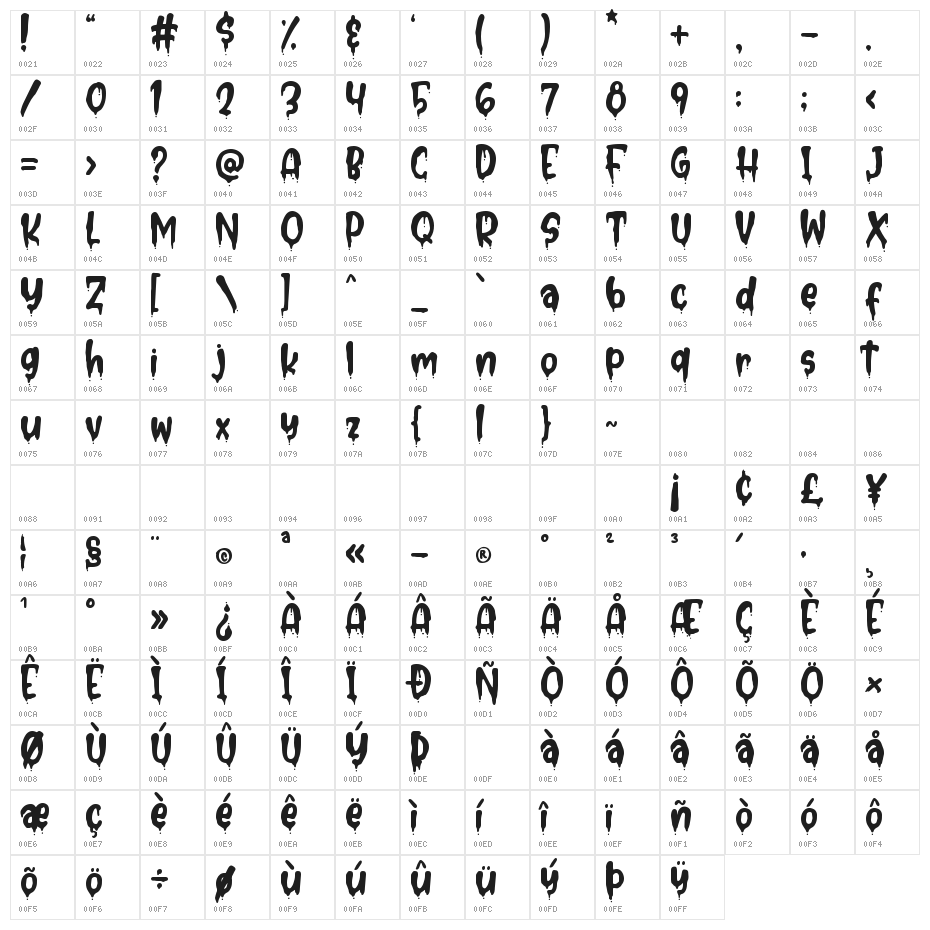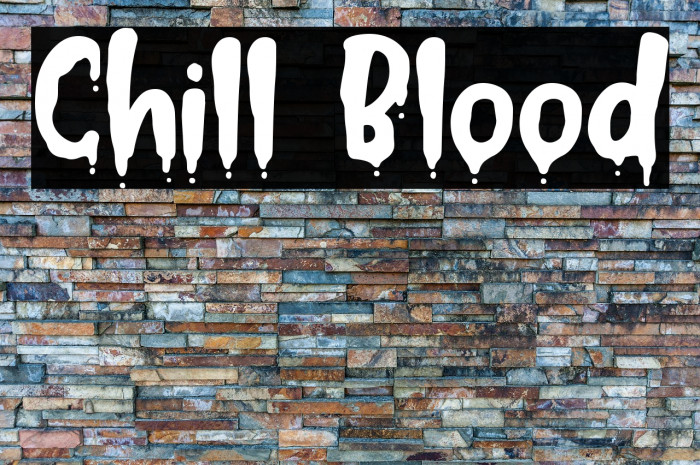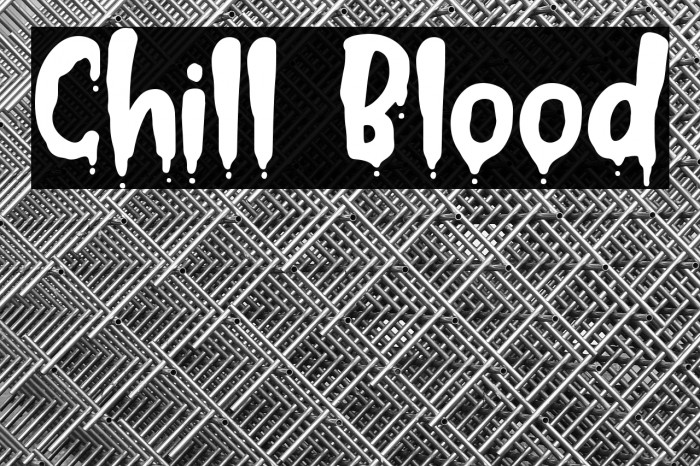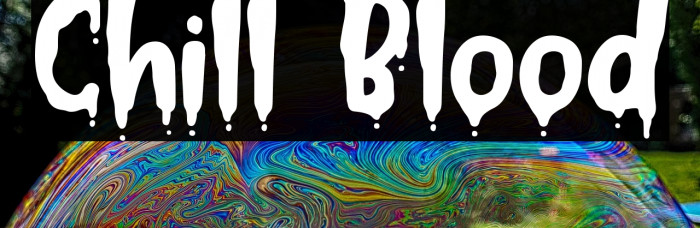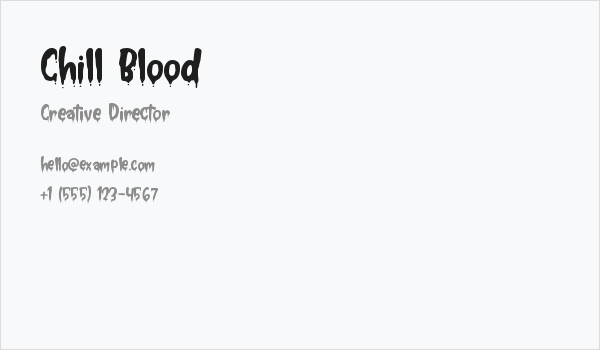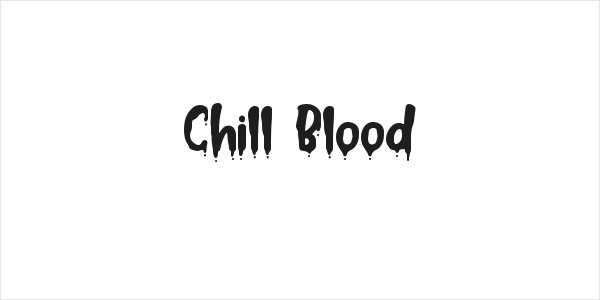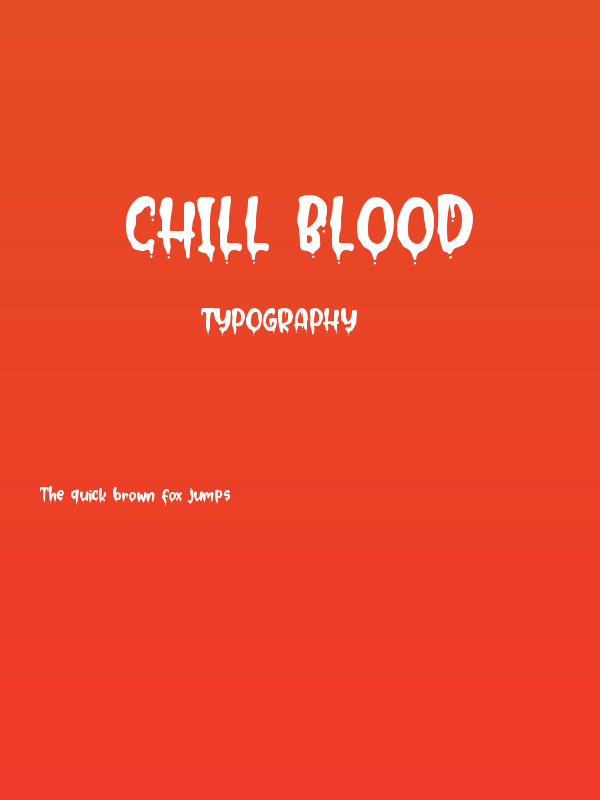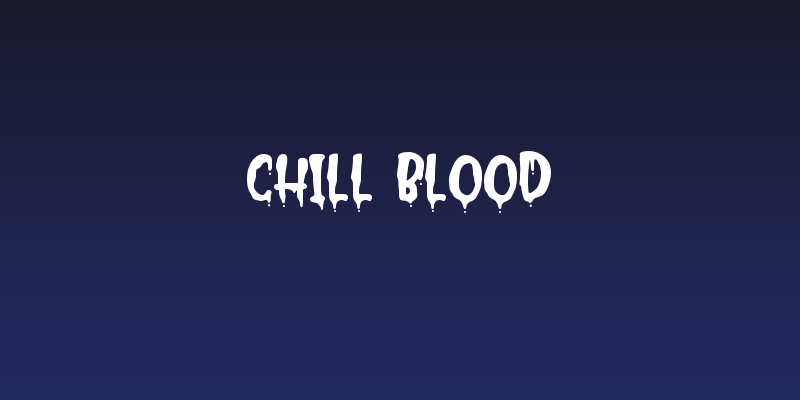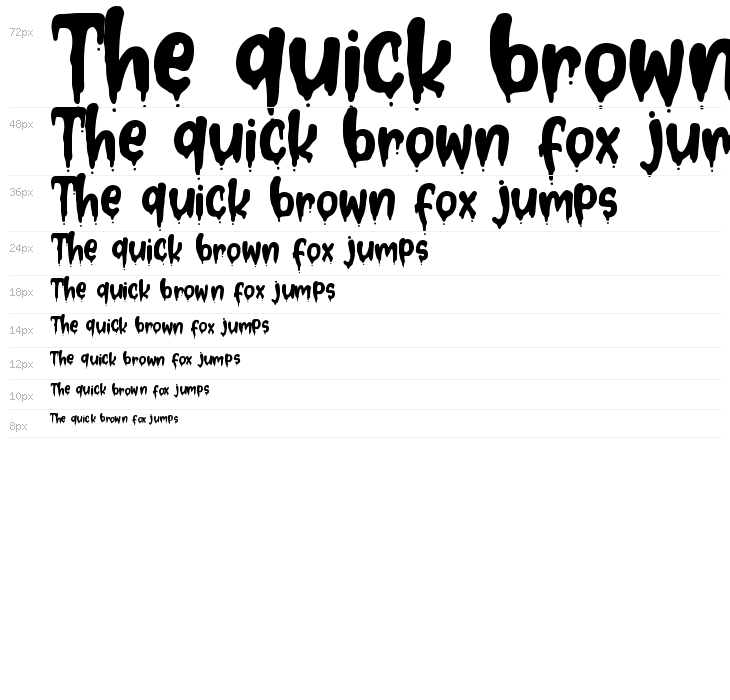
Chill Blood Font
Chill Blood Description
This font features a unique and eye-catching design with a dripping effect that gives it a spooky, horror-themed appearance. The characters are bold and have an irregular, organic shape, reminiscent of dripping paint or blood. This style is particularly effective for creating a chilling atmosphere, making it ideal for Halloween-themed projects or any design that requires a touch of the macabre. The uppercase and lowercase letters maintain a consistent style, with numbers and special characters also following the same dripping motif. The overall look is both playful and eerie, capturing attention with its distinctive and dramatic flair.
| Proposed Projects | Ideal for Halloween posters, horror movie titles, haunted house flyers, and spooky event invitations. |